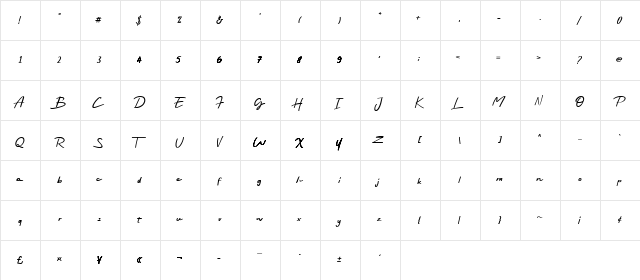
Rayleigh Demo Version Regular
Design Context for Rayleigh Demo Version Typeface
Rayleigh Demo Version is a composed and adaptable typeface that performs quietly and consistently across a wide range of design contexts.